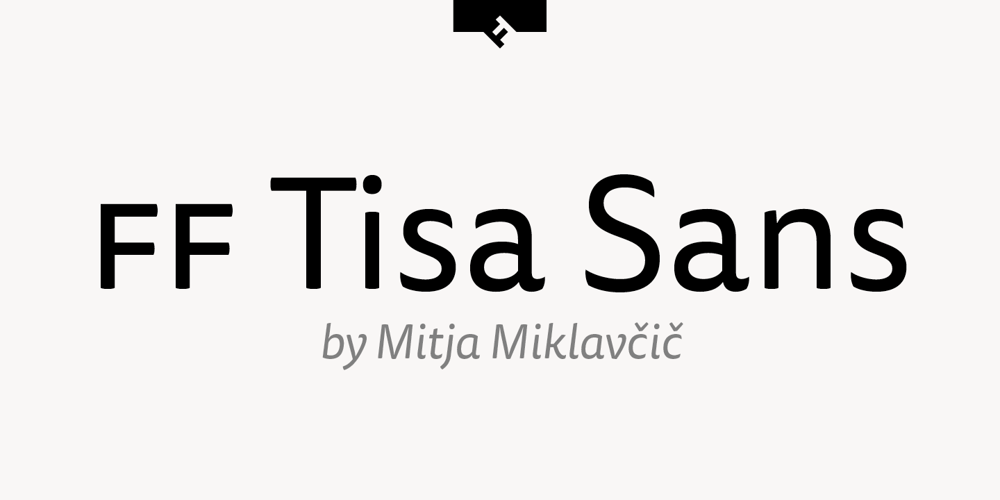
FF Tisa Sans Font Family was designed by Mitja Miklavcic and published by FontFont. FF Tisa Sans contains 14 styles and family package options. Slovenian type designer Mitja Miklavcic created this sans FontFont in 2011. The family has 14 weights, ranging from Thin to Black (including italics) and is ideally suited for advertising and packaging, book text, festive occasions, editorial and publishing, logo, branding and creative industries, poster and billboards, wayfinding and signage as well as web and screen design. FF Tisa Sans provides advanced typographical support with features such as ligatures, small capitals, alternate characters, case-sensitive forms, fractions, and super- and subscript characters. It comes with a complete range of figure set options – oldstyle and lining figures, each in tabular and proportional widths. In 2013, FF Tisa Sans received the CommArts award and was also selected as one of Typographica’s favorite typefaces of 2012. This FontFont is a member of the FF Tisa super family, which also includes FF Tisa.